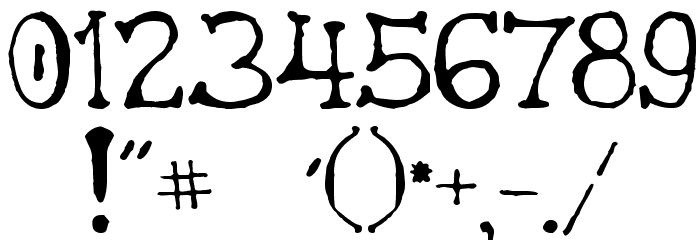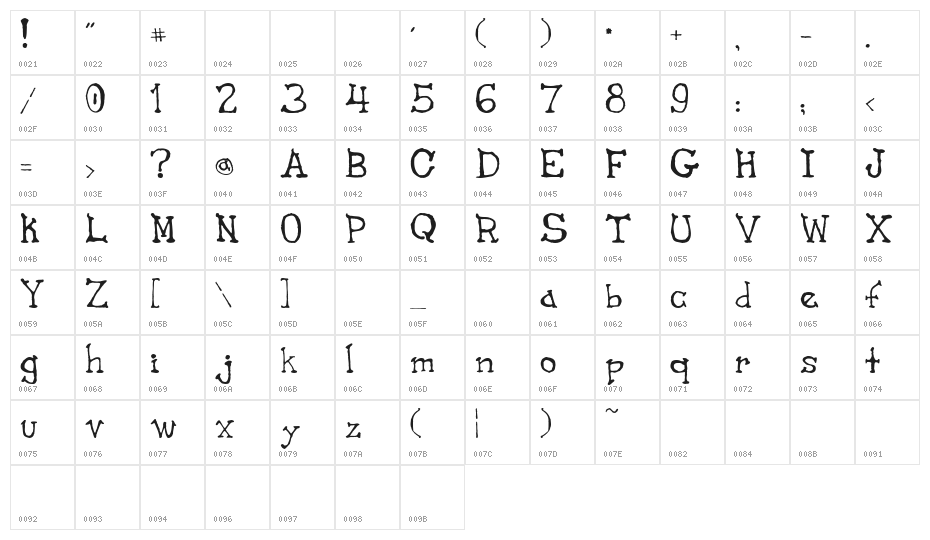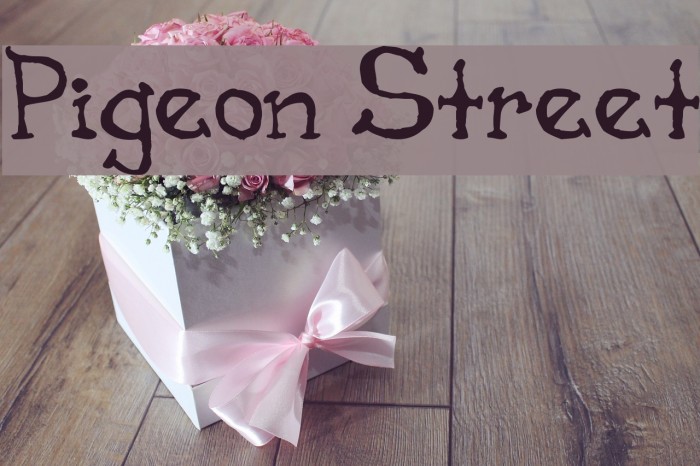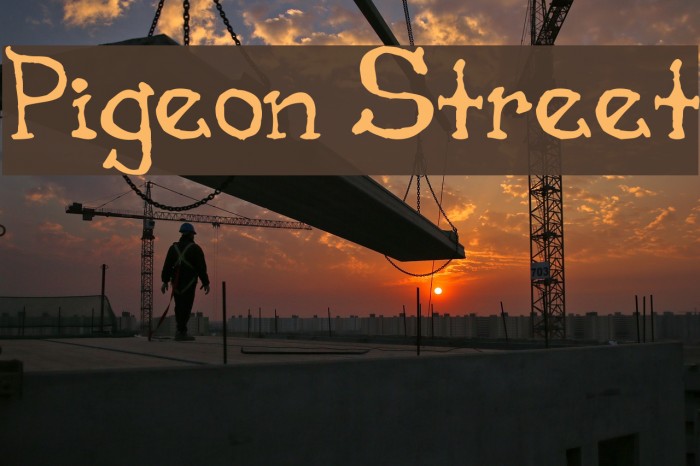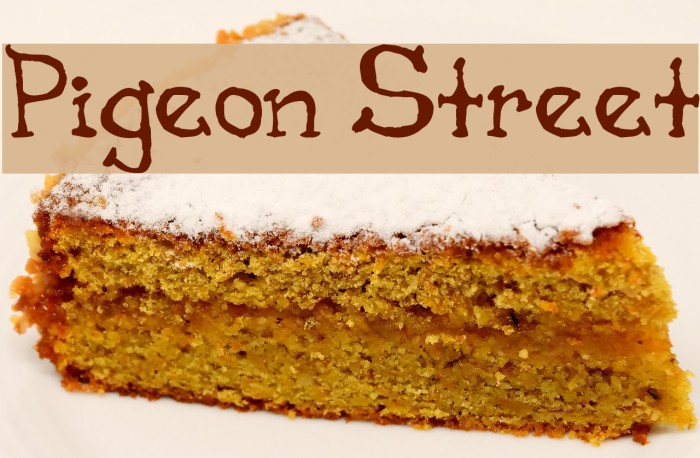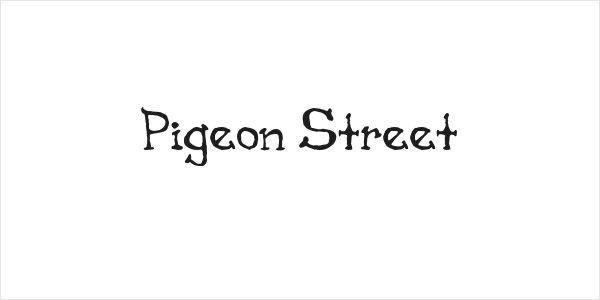
Pigeon Street Font
Pigeon Street Description
This font features a whimsical and playful design, characterized by its irregular and hand-drawn appearance. The letters have a slightly uneven baseline, giving them a casual and informal feel. The strokes are varied in thickness, adding to the organic and lively nature of the typeface. The uppercase and lowercase letters maintain a consistent style, with quirky serifs and a slightly exaggerated form. The numbers and special characters follow the same playful aesthetic, making the font suitable for creative and artistic projects. Its unique style makes it stand out, perfect for designs that require a touch of personality and charm.
A whimsical, hand-drawn font with irregular strokes and playful serifs from Uncategorized fonts.
- Proposed Projects: Ideal for children's books, greeting cards, artistic posters, and creative branding.
- Use Case: Headlines, Artistic projects, Informal designs